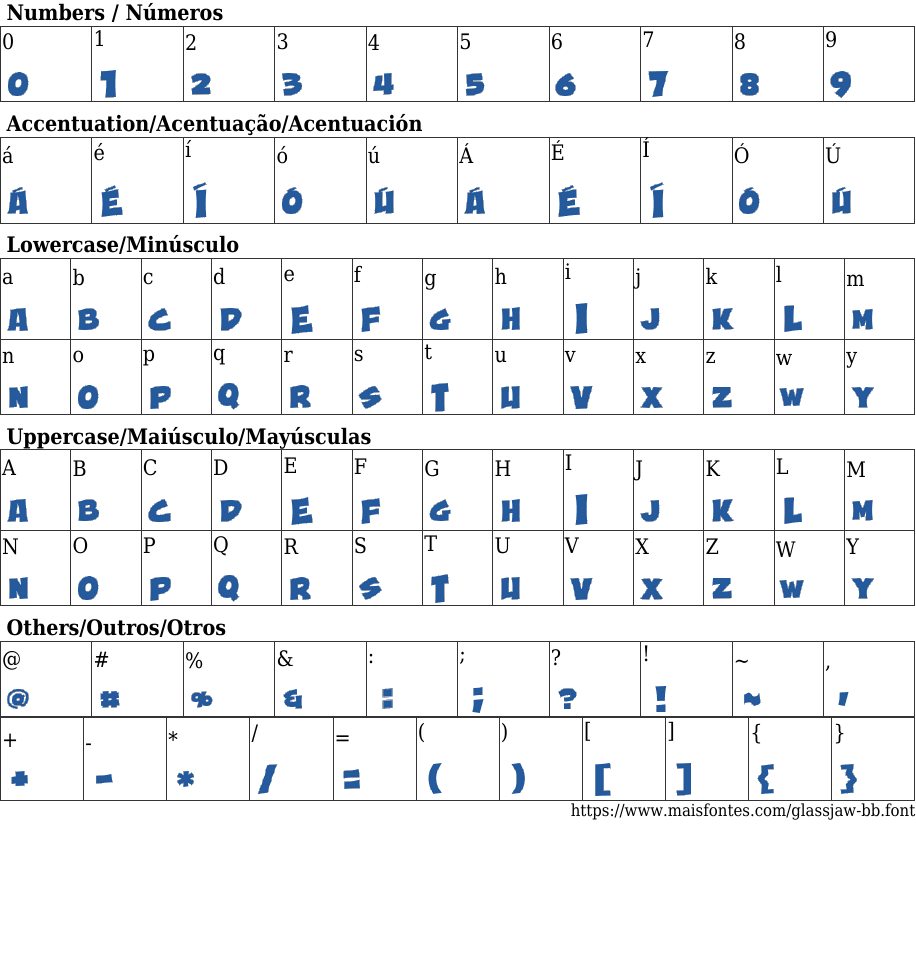
Glass Jaw Font . Glass jaw, font by blambot. Installation instructions for both mac and windows Thousands of designers (famous or not) use the image font detection system to find a font or similar free fonts from an image. Download glass jaw bb regular font. Download glassjaw bb complete family pack, provided on fonts.com from blambot. Glass jaw can be purchased. Glass jaw bb ist kraftvoll und voller schwung und sorgt dafür, dass ich nicht ausgezählt werde. Punchy and full of spunk, glass jaw bb is designed to keep am down for the count. The glassjaw bb font was designed by nate piekos. Download—the font meta search engine with more than 50,000 font styles to find and order. Regular and italic included with lots of european. Regular und italic mit vielen europäischen. Regular, italic european characters which license is right for you? Glassjaw bb is the perfect font for all your fun designs.
Installation instructions for both mac and windows Regular and italic included with lots of european. Regular und italic mit vielen europäischen. Glassjaw bb is the perfect font for all your fun designs. The glassjaw bb font was designed by nate piekos. Thousands of designers (famous or not) use the image font detection system to find a font or similar free fonts from an image. Punchy and full of spunk, glass jaw bb is designed to keep am down for the count. Regular, italic european characters which license is right for you? Download—the font meta search engine with more than 50,000 font styles to find and order. Glass jaw bb ist kraftvoll und voller schwung und sorgt dafür, dass ich nicht ausgezählt werde.
Glass Jaw Font Glass jaw can be purchased. Thousands of designers (famous or not) use the image font detection system to find a font or similar free fonts from an image. Regular, italic european characters which license is right for you? Download glass jaw bb regular font. Glassjaw bb is the perfect font for all your fun designs. Glass jaw can be purchased. Glass jaw, font by blambot. The glassjaw bb font was designed by nate piekos. Download—the font meta search engine with more than 50,000 font styles to find and order. Regular and italic included with lots of european. Glass jaw bb ist kraftvoll und voller schwung und sorgt dafür, dass ich nicht ausgezählt werde. Punchy and full of spunk, glass jaw bb is designed to keep am down for the count. Download glassjaw bb complete family pack, provided on fonts.com from blambot. Installation instructions for both mac and windows Regular und italic mit vielen europäischen.